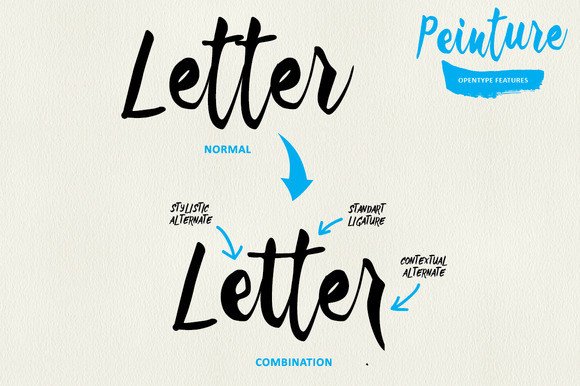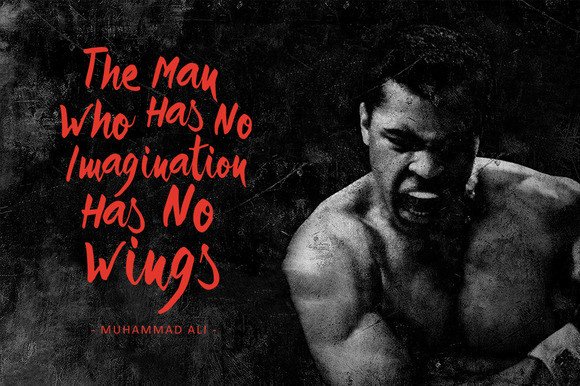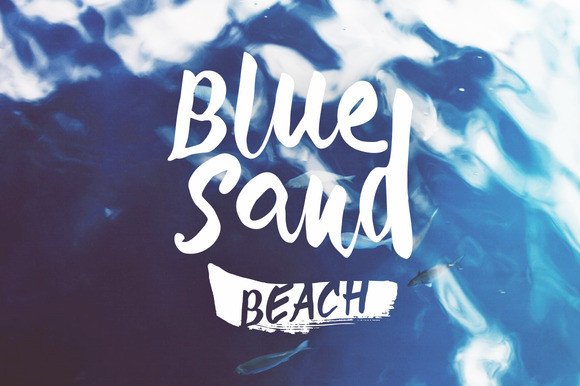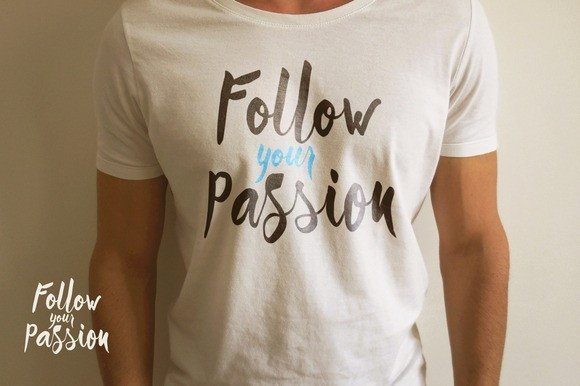
Peinture Font
About Peinture Font
Peinture is a hallmark brush stroke font, one that combines high impact design with the elegance of calligraphy style. Peinture is stunning and stands out in large format designs.